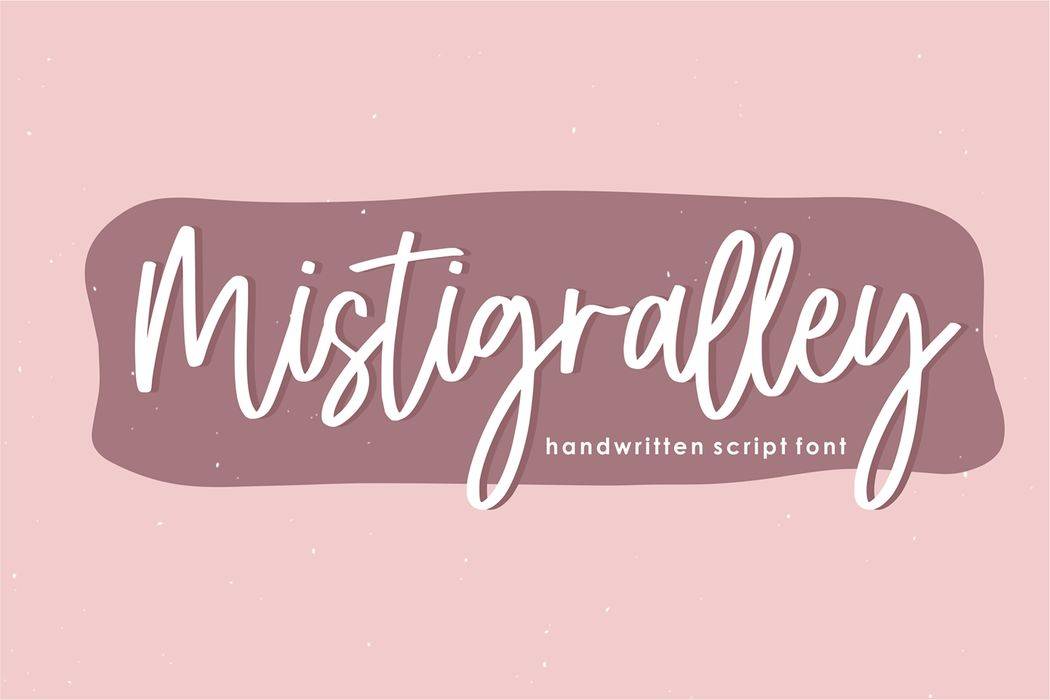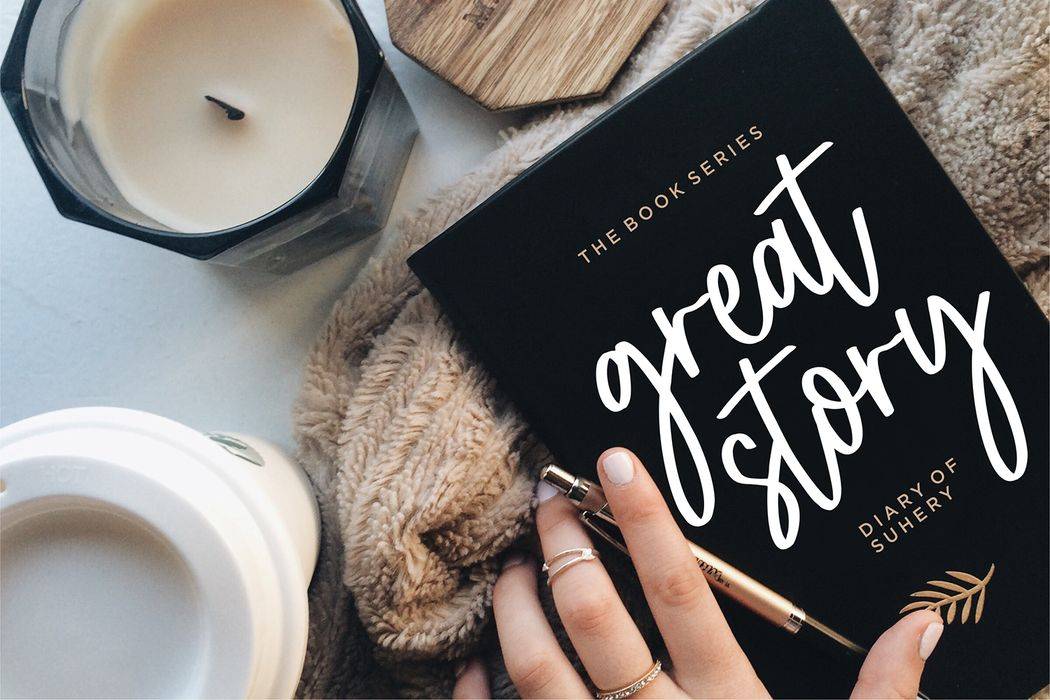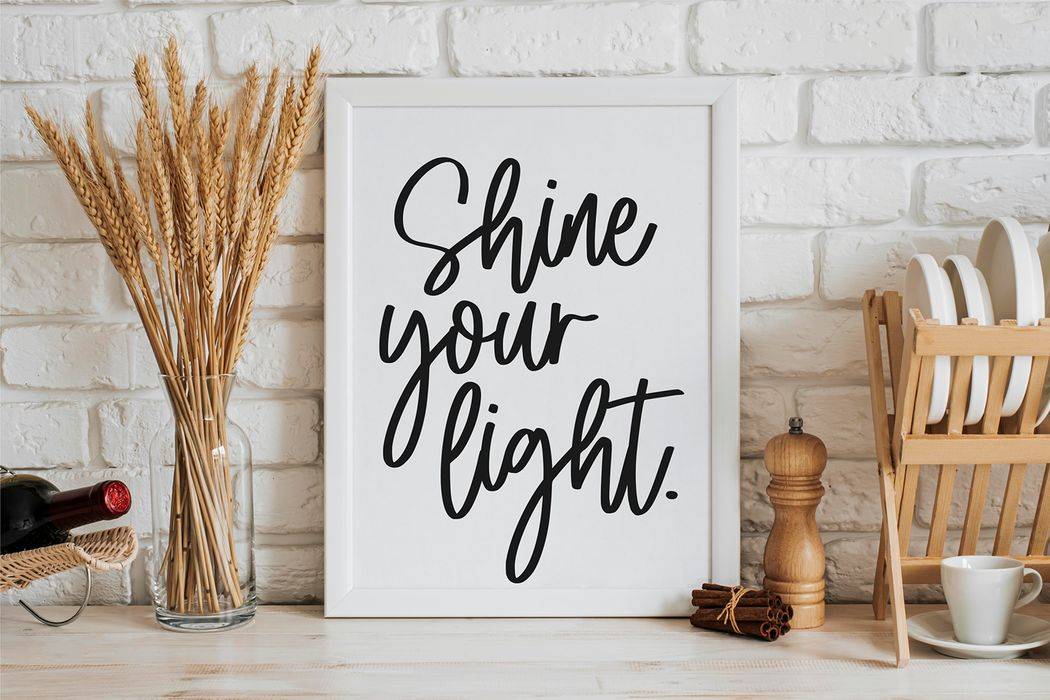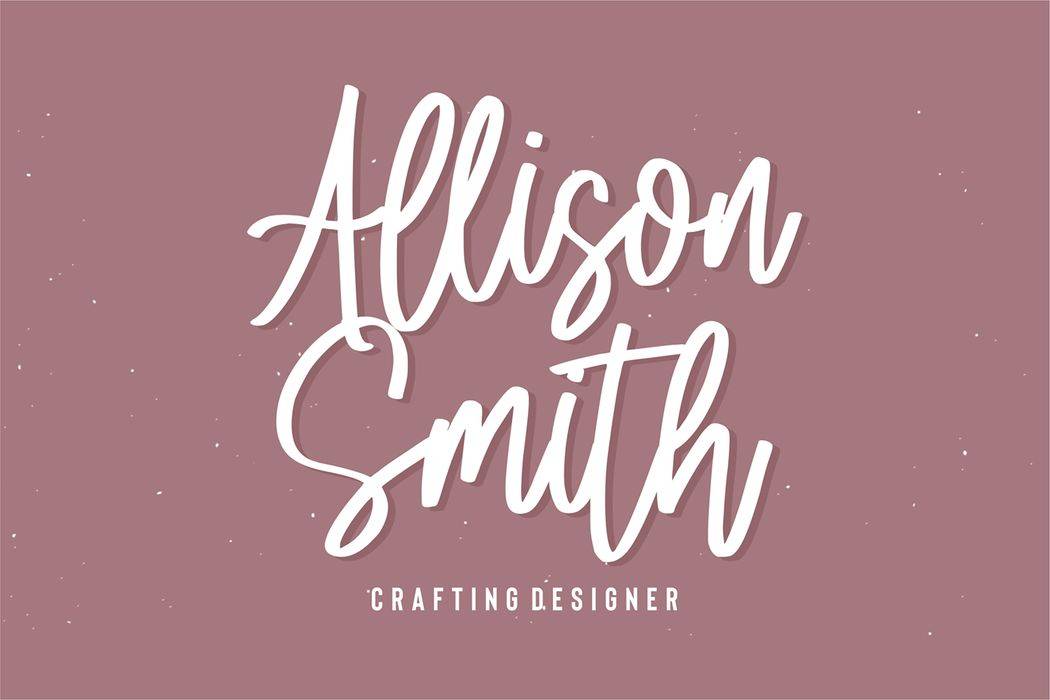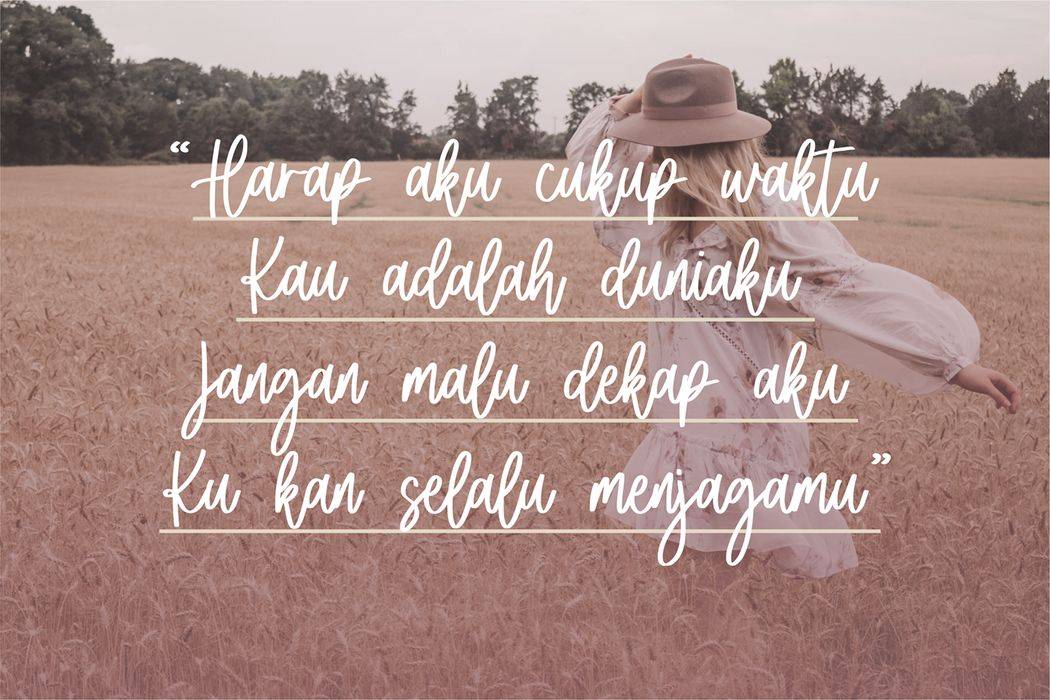
Mistigralley is a lively handwritten script font with a playful and friendly character, featuring smooth, rounded strokes and a casual, modern feel. Its balanced mix of uppercase and lowercase letters, along with clear, slightly condensed shapes and informal curves, makes it perfect for adding a personal, approachable touch to branding, logos, invitations, and social media graphics. This font works well where warmth and creativity are needed, offering readability while maintaining a charming, hand-crafted vibe.
Mistigralley Font
About Mistigralley Font